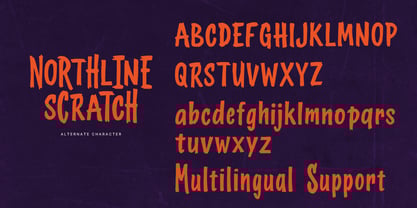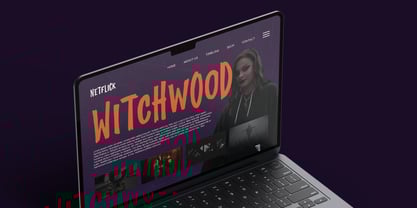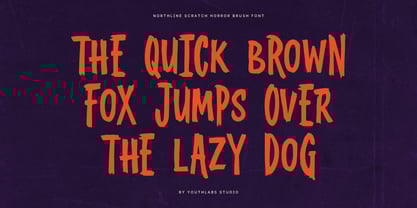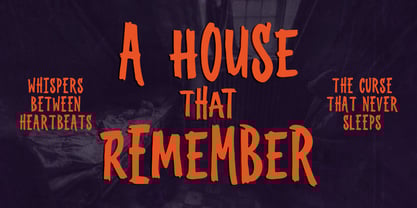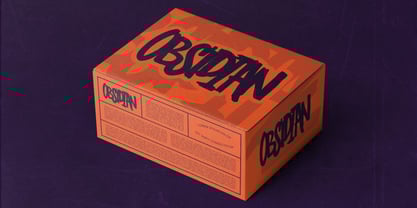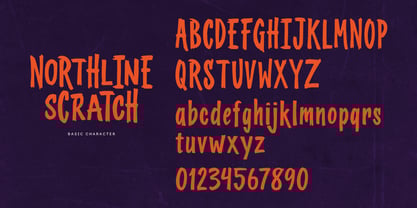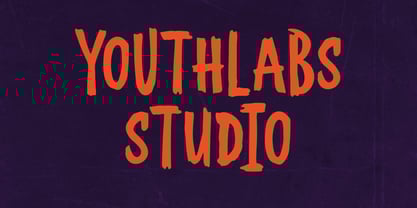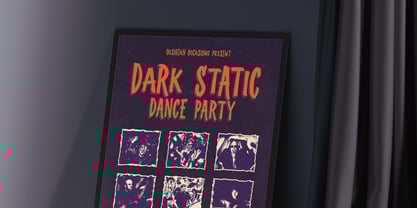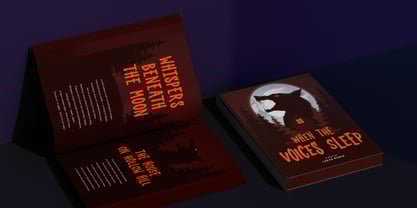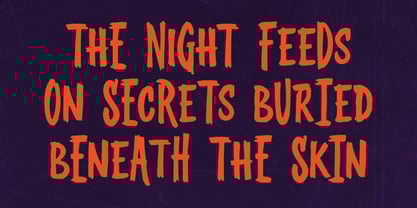
Nortline Scratch
by Youthlabs
The Nortline Scratch Font Family was designed by Fathi Al Ghazi and published by Youthlabs. Nortline Scratch contains 1 styles. More about this family
Northline Scratch is a raw brush horror typeface inspired by scratched textures, hand-painted strokes, and dark cinematic atmospheres. With its jagged edges, uneven rhythm, and aggressive brush character, this font is built to amplify fear, tension, and chaos. Perfect for horror movies, Halloween designs, album covers, game titles, posters, and eerie branding, Northline Scratch delivers a powerful handcrafted look that feels intense, wild, and unapologetically bold. ✨ Key Features Brush horror display style Hand-drawn scratched texture Raw and aggressive letterforms Uneven baseline for organic feel Strong impact for dark themes Ideal for horror & thriller designs Perfect for posters, games & titles Cinematic and edgy personality Uppercase & lowercase support
Designers: Fathi Al Ghazi
Foundry: Youthlabs